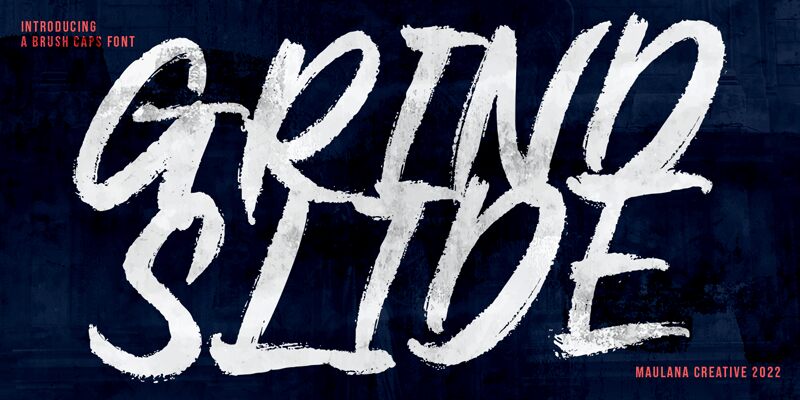
Grind Slide Free Regular
Grind Slide, designed by the talented Maulana Creative, is a captivating brush font that will add a touch of edginess to your projects. With its bold strokes and dynamic style, this versatile typeface is perfect for designing eye-catching posters, trendy apparel, urban-themed logos, and captivating social media graphics. Its energetic and contemporary vibe makes it an ideal choice for streetwear brands, skateboard companies, music festivals promotions, and adventurous outdoor campaigns. Whether you're looking to create an urban masterpiece or inject some rebellious spirit into your designs, Grind Slide is the perfect font to bring your vision to life.